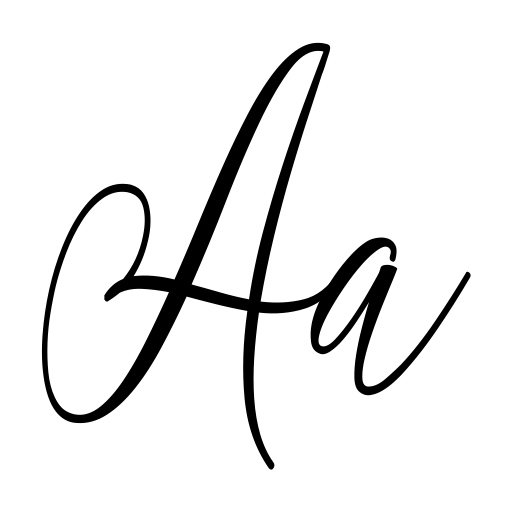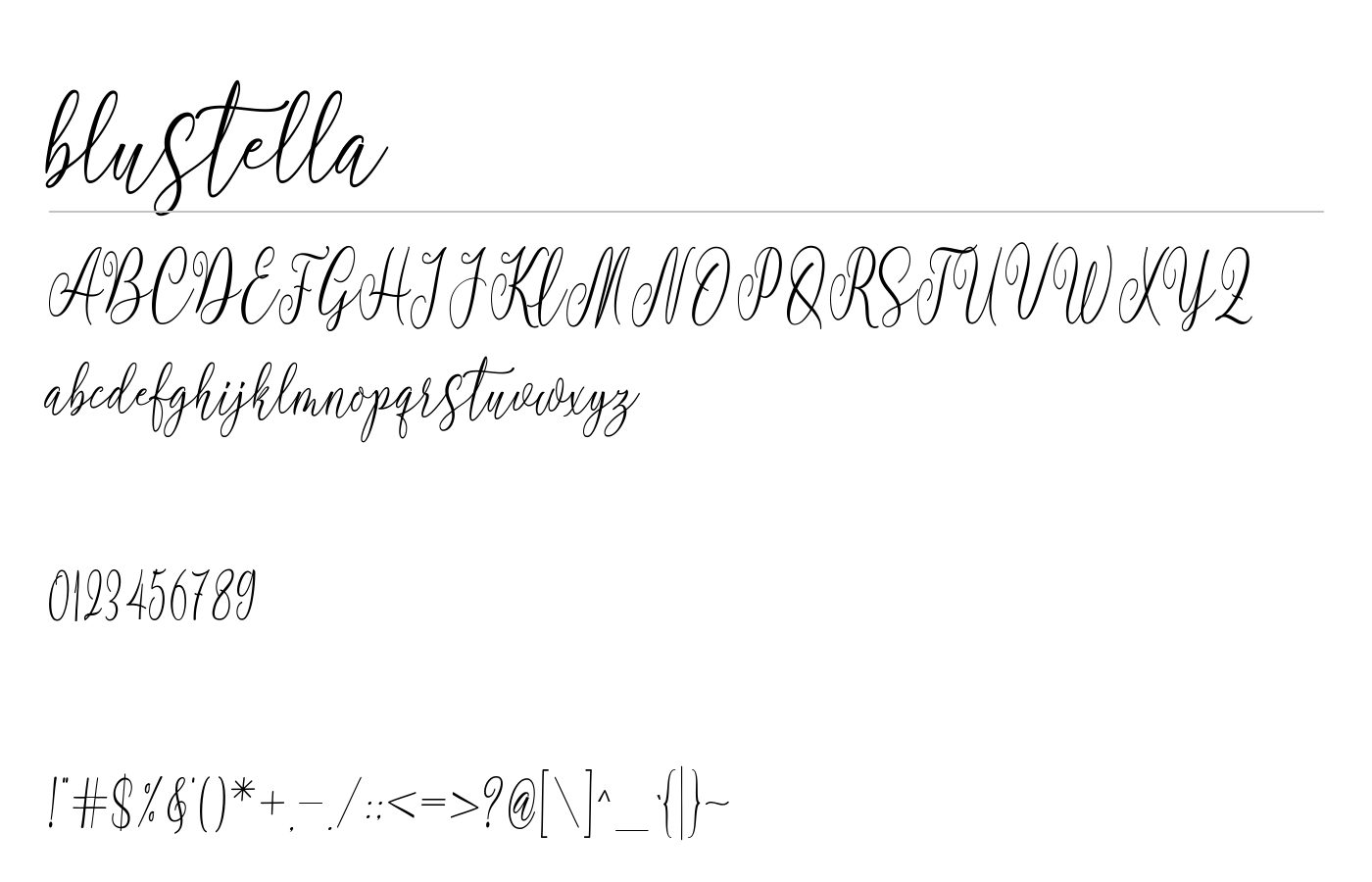
Blustella is a delicate, elegant script font characterized by its thin, flowing strokes and graceful curves that give it a handwritten, personal feel. Its tall, narrow letterforms with high contrast and subtle loops create a refined and stylish appearance, ideal for feminine branding, wedding invitations, and other designs that require a touch of sophistication and charm. This font works beautifully in headlines and logos where a light, airy, and artistic expression is desired.
blustella Font